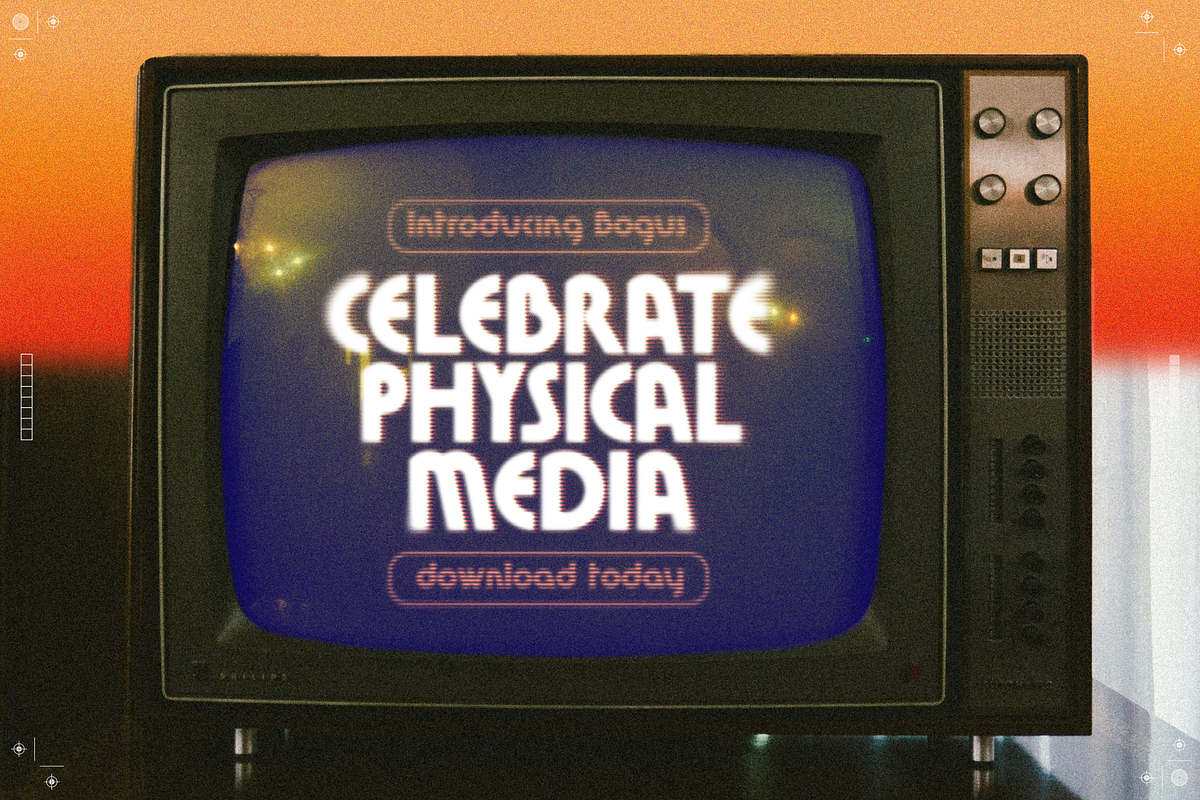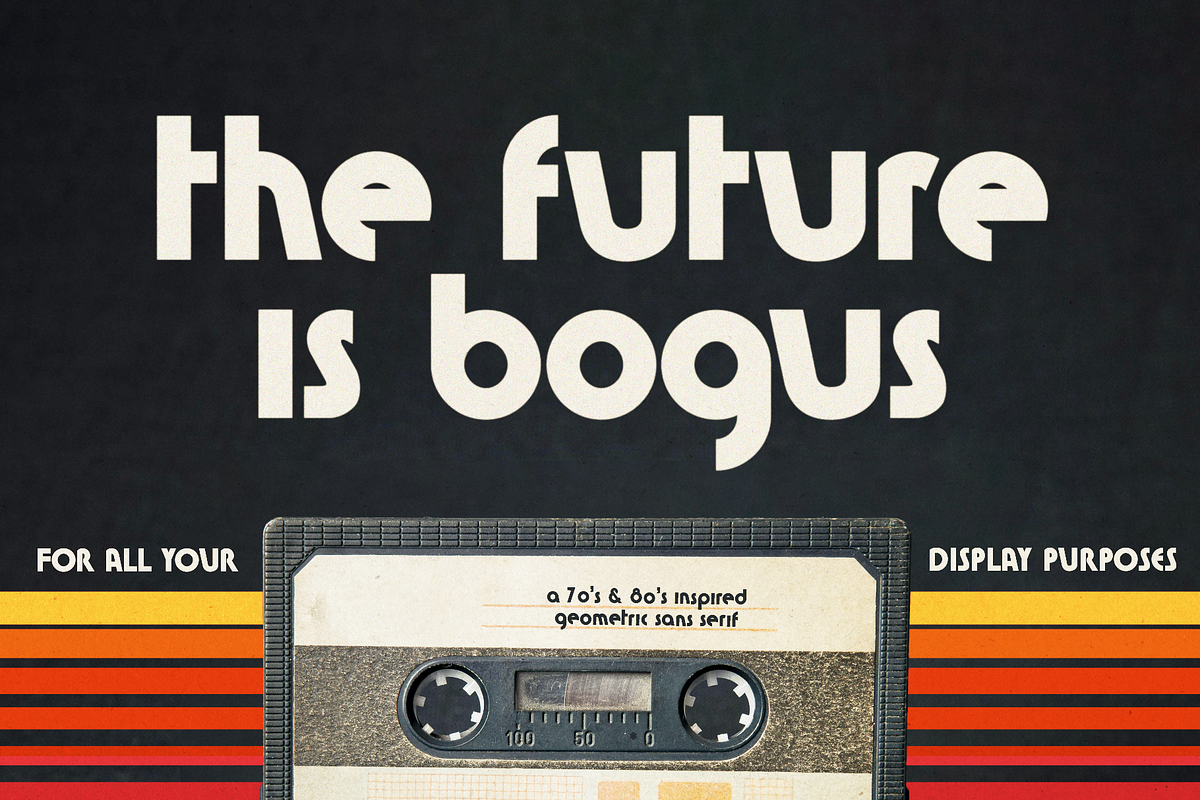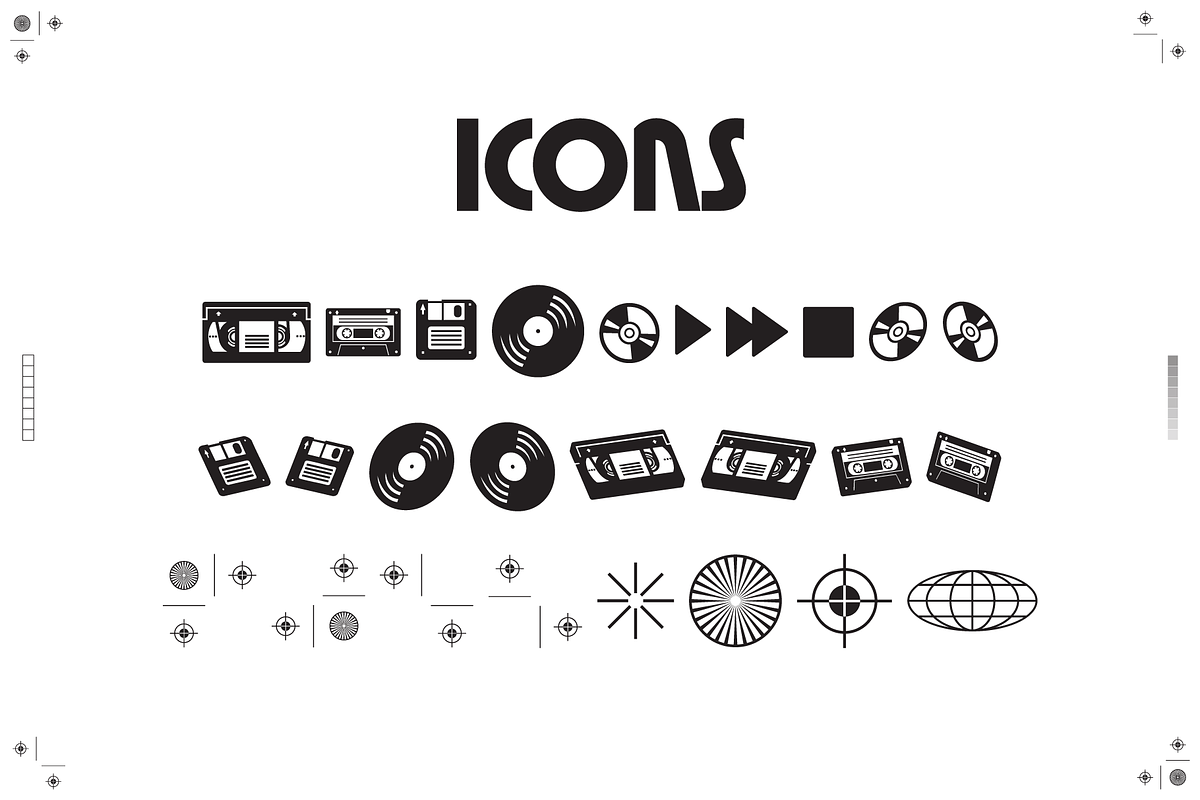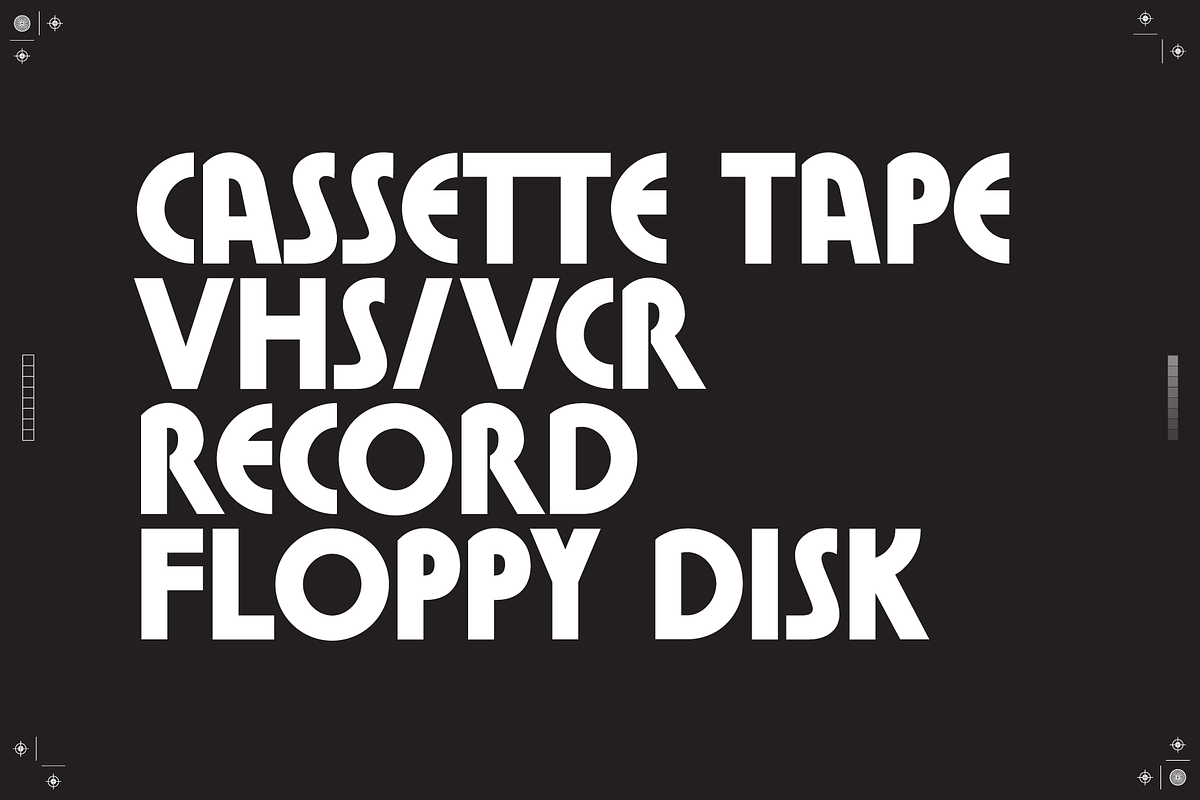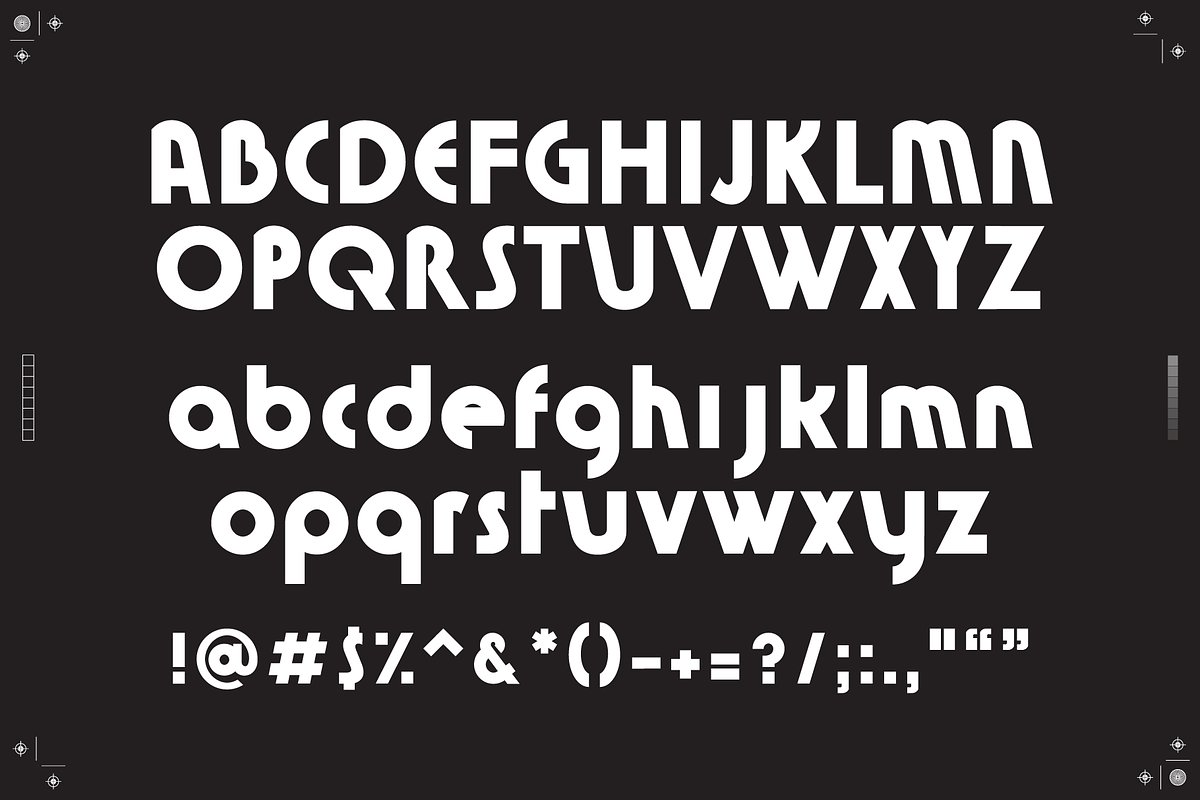
Bogus - 70s & 80s Retro Font
Feeling nostalgic? Looking to type something and be transported to a time where AI was just a sci-fi concept? This font is for you.
Based on type from the 70s & 80s Bogus is the perfect display font for your record sleeve or cassette tape packaging. The font also includes a full set of 26 different icons representing physical media and printers marks, that can be used to pair directly with the type in designs.